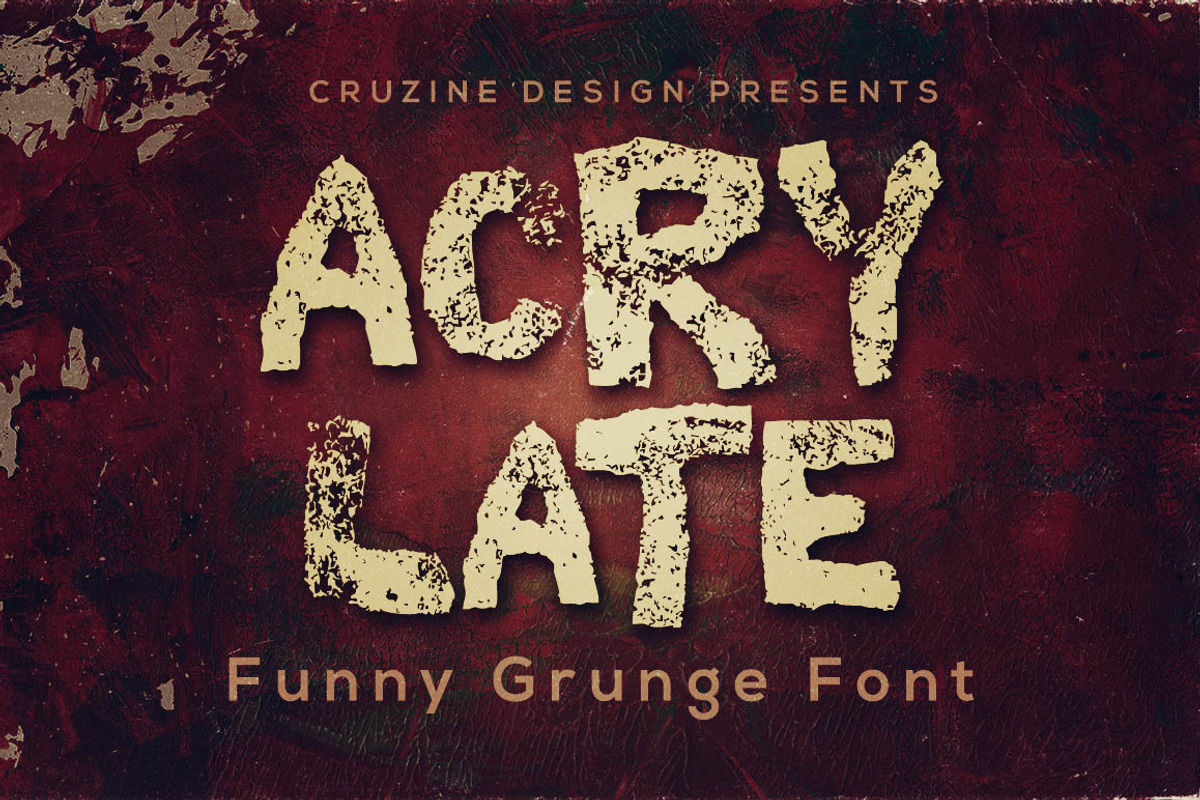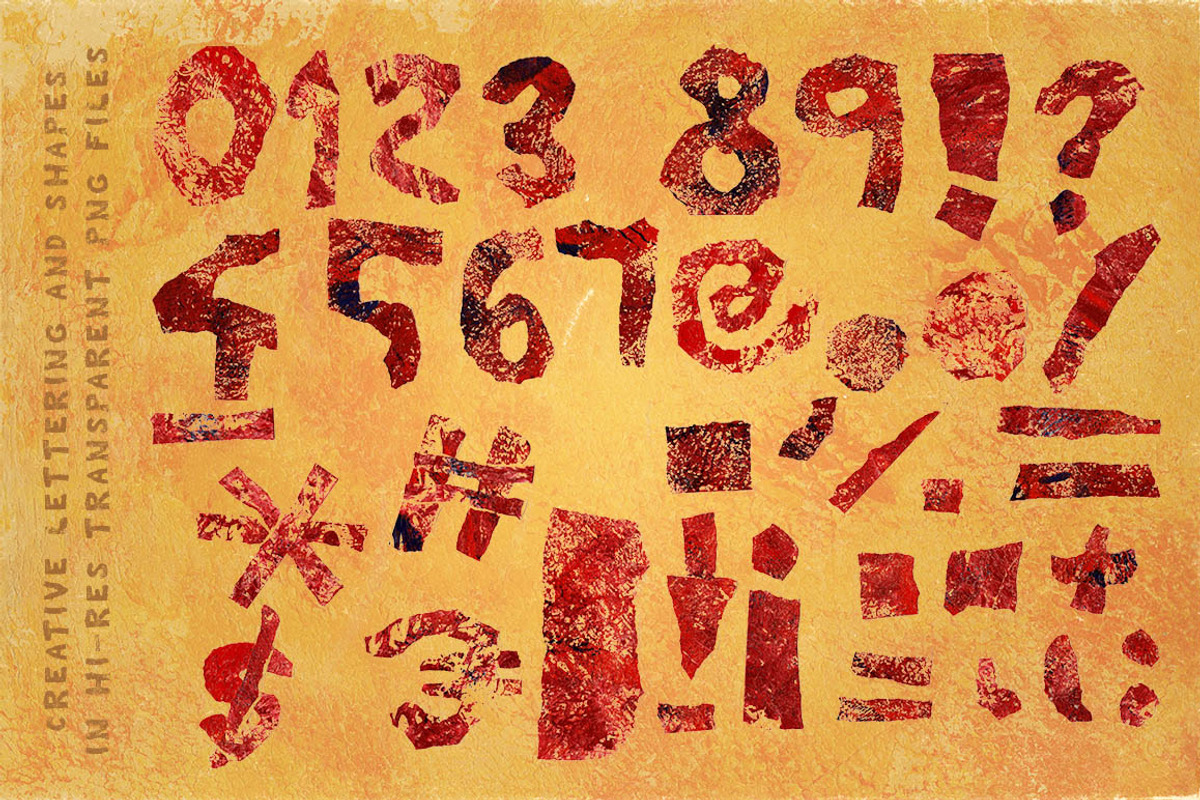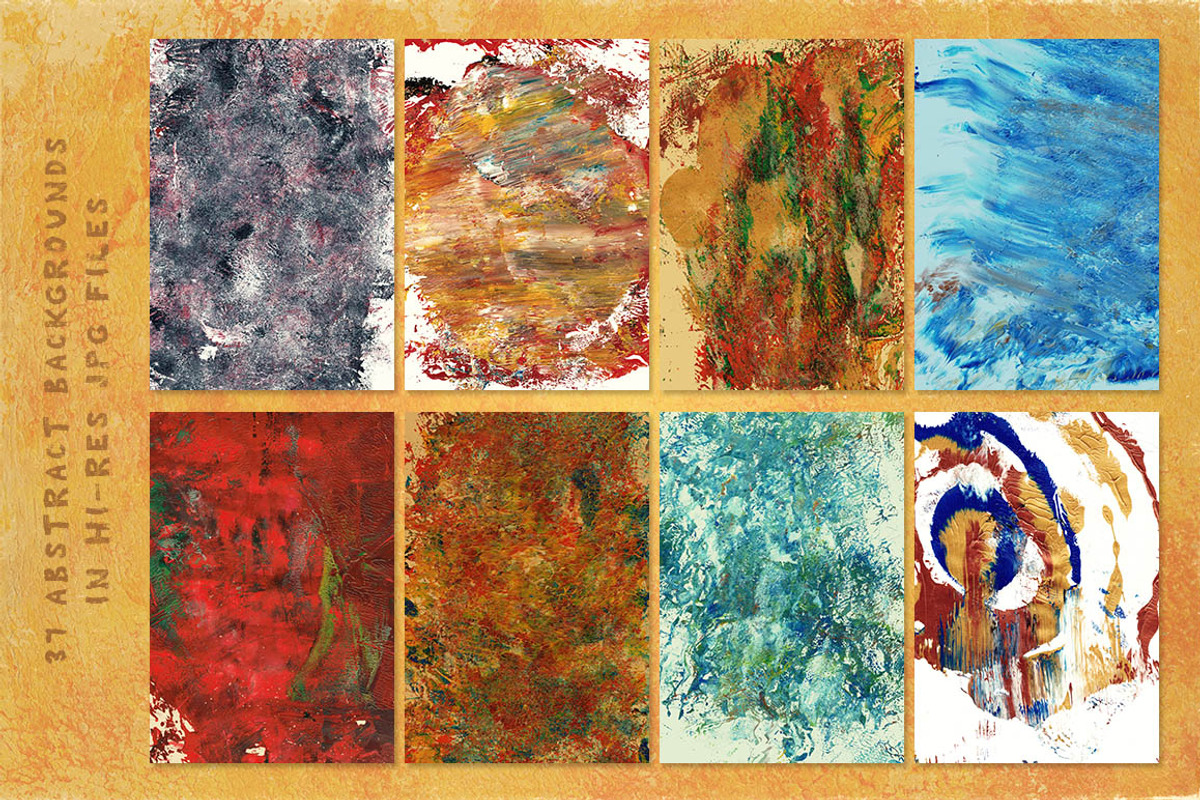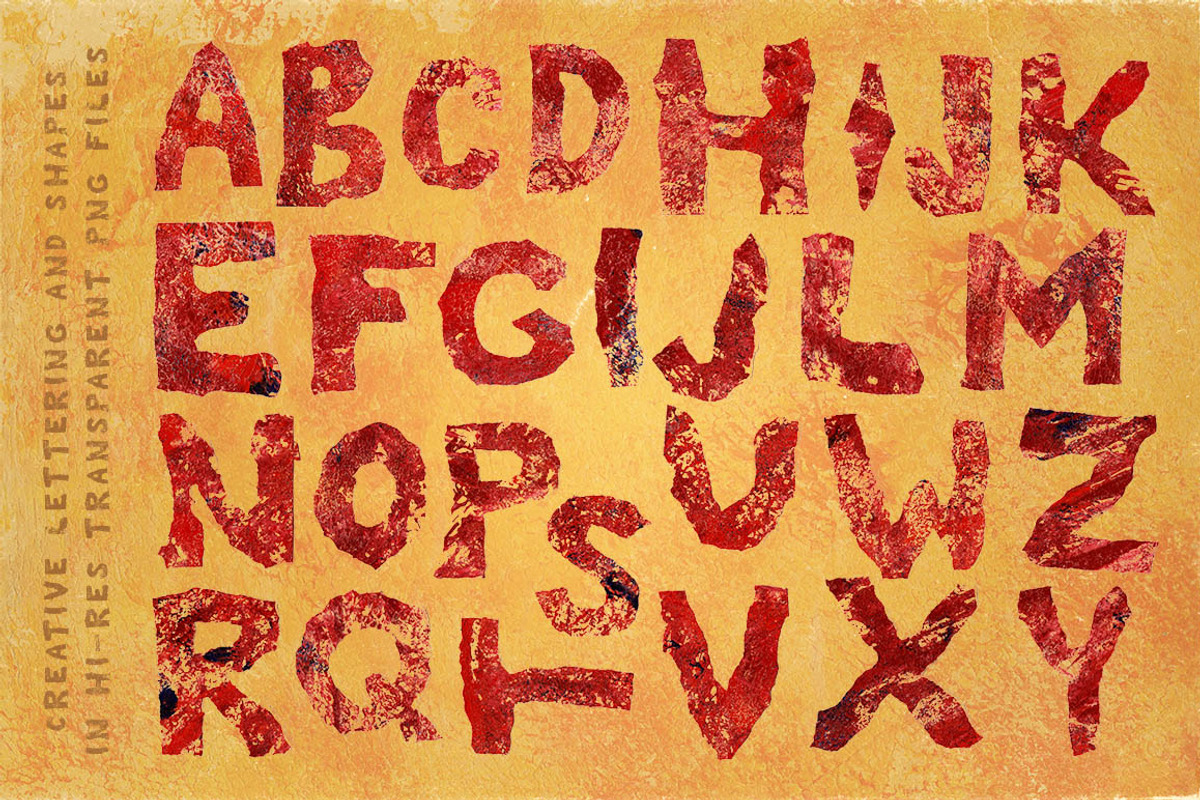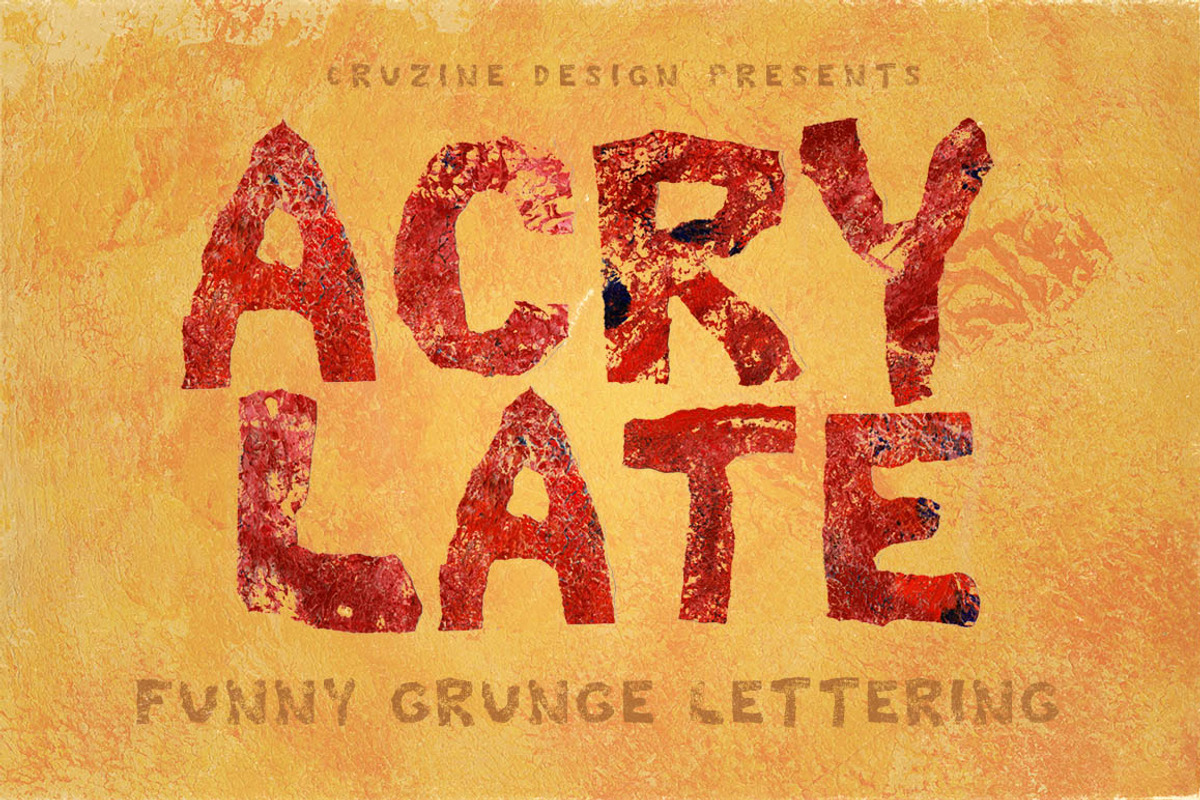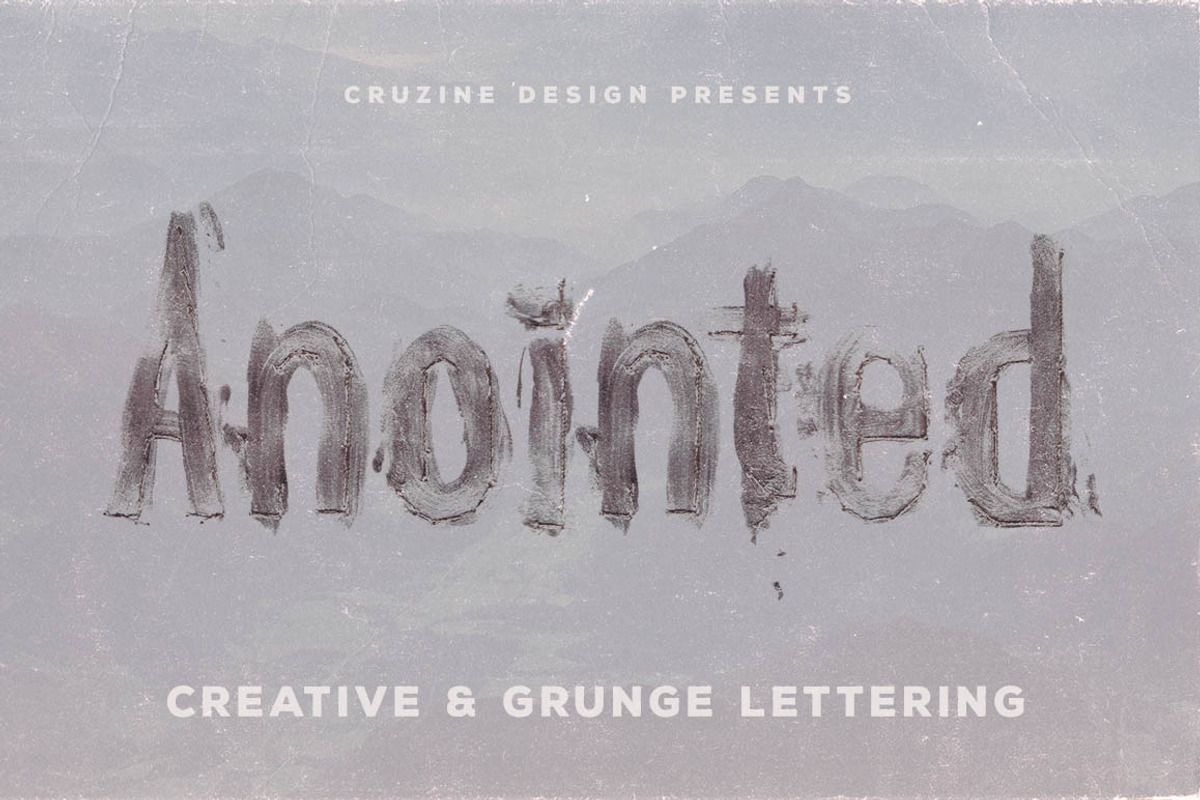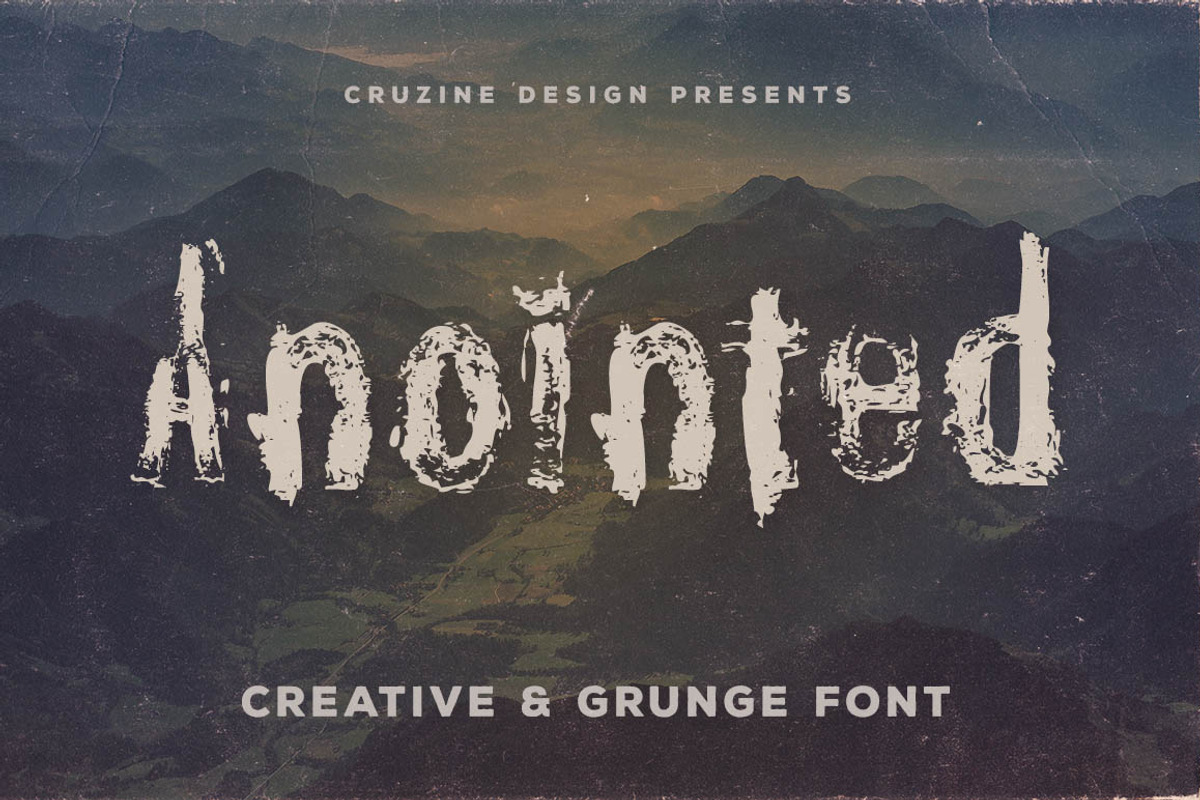
Artistic Fonts Bundle 3
Why Artistic Fonts Bundle 3 is worth a look
Artistic Fonts Bundle 3 by Cruzine fits naturally into Branding, posters, packaging, typography.